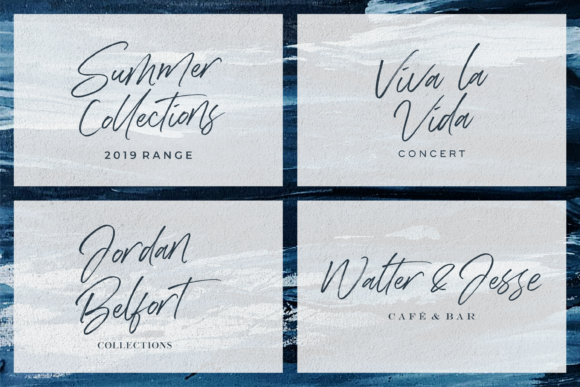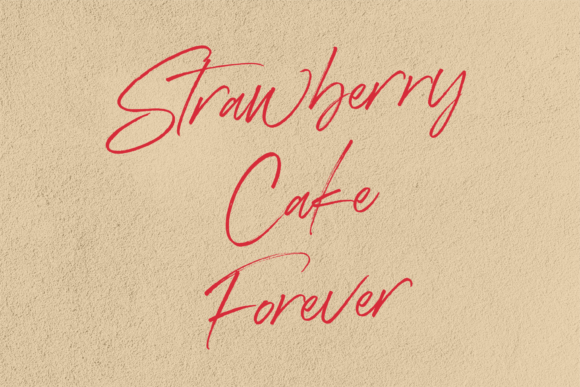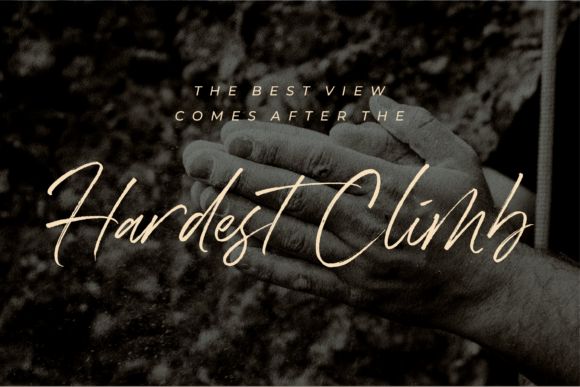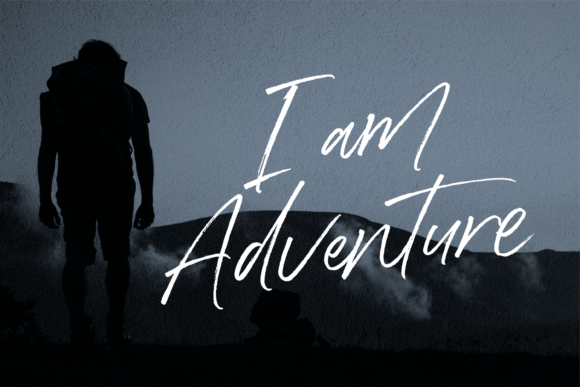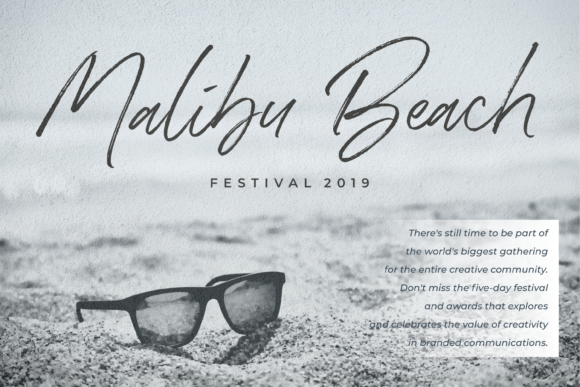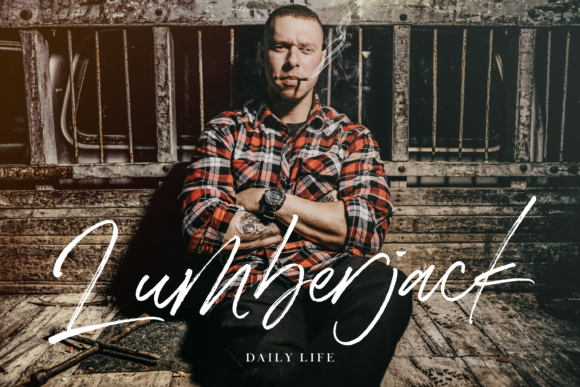
The Denmark Font: A Bold and Stunning Script for Your Design Projects
The Denmark Font is a bold and stunning script with an original approach to lettering. Its unique blend of elegance and playfulness makes it perfect for a wide range of design projects, from branding and advertising to packaging and signage.
An Honest Review of the Denmark Font
- ✨ Unique and original lettering style that stands out from the crowd
- 💫 Beautifully crafted with attention to detail and a focus on aesthetics
- 🎨 Versatile and adaptable, suitable for a wide range of design projects
While the Denmark Font is an amazing addition to any design project, there are a few things to keep in mind. 🤔 For example, some of the more intricate details and flourishes may not display well at very small sizes. ⚠️ Additionally, the font’s bold and playful style may not be suitable for more formal or traditional design projects.
One of the standout features of the Denmark Font is its support for OpenType features and glyphs. These features allow you to add more creativity and customization to your design, taking it to the next level. Some of the OpenType features you can experiment with include:
- Stylistic alternates: swap out letters for alternative designs
- Ligatures: combine letters for a more elegant look
- Glyphs: add special characters and symbols to your design
The Backstory Behind the Denmark Font
The Denmark Font was designed by a team of creatives who wanted to create a unique and original script font that would stand out from the crowd. Inspired by the country’s stunning landscapes and rich cultural heritage, they crafted a font that’s both elegant and playful. The result is a font that’s perfect for designers who want to add a touch of sophistication and whimsy to their projects.
Q: What is the Denmark Font?
A: The Denmark Font is a bold and stunning script font with an original approach to lettering.
Q: Can I use the Denmark Font in my branding and advertising projects?
A: Absolutely! The Denmark Font is perfect for branding and advertising projects that require a bold and eye-catching font.
Q: Is the Denmark Font easy to read?
A: Yes, the Denmark Font is highly legible, even at small sizes, making it perfect for a wide range of design projects.